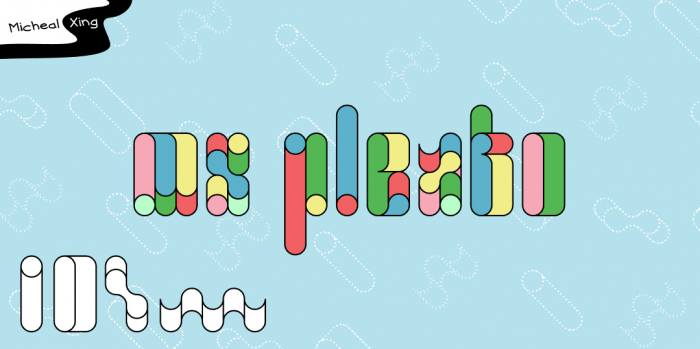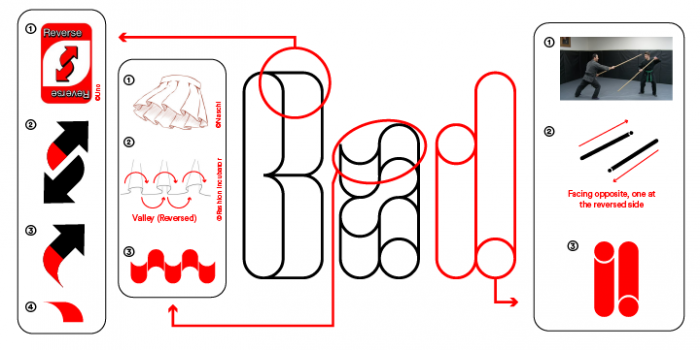
A portmanteau of the term 'Pleat' and 'Uno', mx Pleato was inspired by the wavy pleats of the skirt and the tails of the 'Reverse' symbol arrows found in Uno cards. I was first interpreting the "Reverse" aspect of the glyph designs through a simple sketch of a pleated skirt/ribbon by using the opposites of the arches (AKA valleys) and then furthering the project using quarter arches of a ribbon (like the arrow tails in Uno), opposite-facing rods and other additional elements.
Inventive letterforms, great to see your working process illustrated.
@Brynda: Total of 13 bricks based on "My Bricks" palette that I have. Other than the 4 thin macaroni bricks, the rest are composited and/or stacked together.